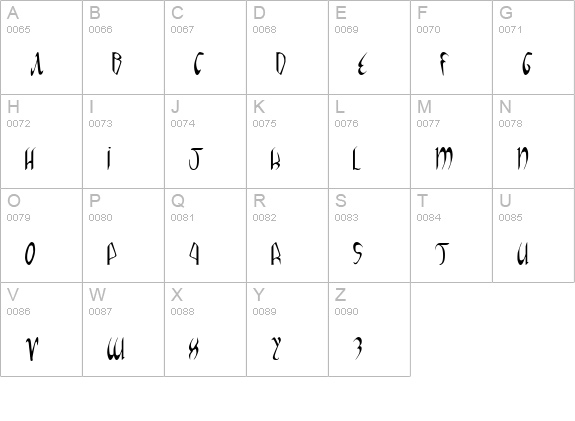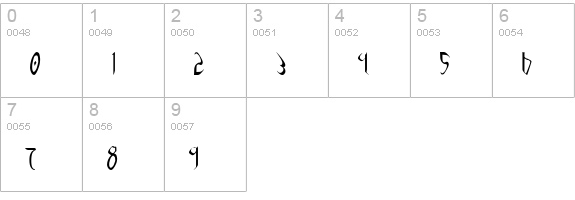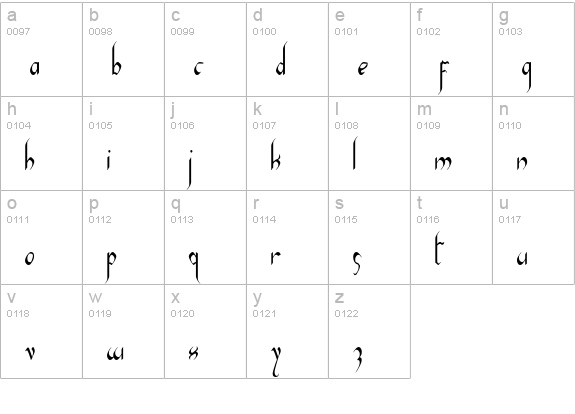
Xaphan II Condensed is a distinctive, condensed-width variant in the Xaphan typeface family \xE2\x80\x94 well suited to design and typography projects.
Introducing Xaphan II Condensed font, a sleek and modern typeface that exudes sophistication and style. With its clean lines and elegant design, this font is perfect for a wide range of projects, from branding to editorial design. The condensed style of Xaphan II adds a touch of sleekness and professionalism to any text, making it ideal for creating eye-catching headlines and titles. What sets Xaphan II Condensed font apart is not only its striking appearance, but also the fact that it is available for free download at FontsMarket.com. Yes, you read that right - this high-quality font can be yours at no cost, allowing you to elevate your design projects without breaking the bank. Don't miss out on the opportunity to add Xaphan II Condensed font to your collection today and take your designs to the next level.